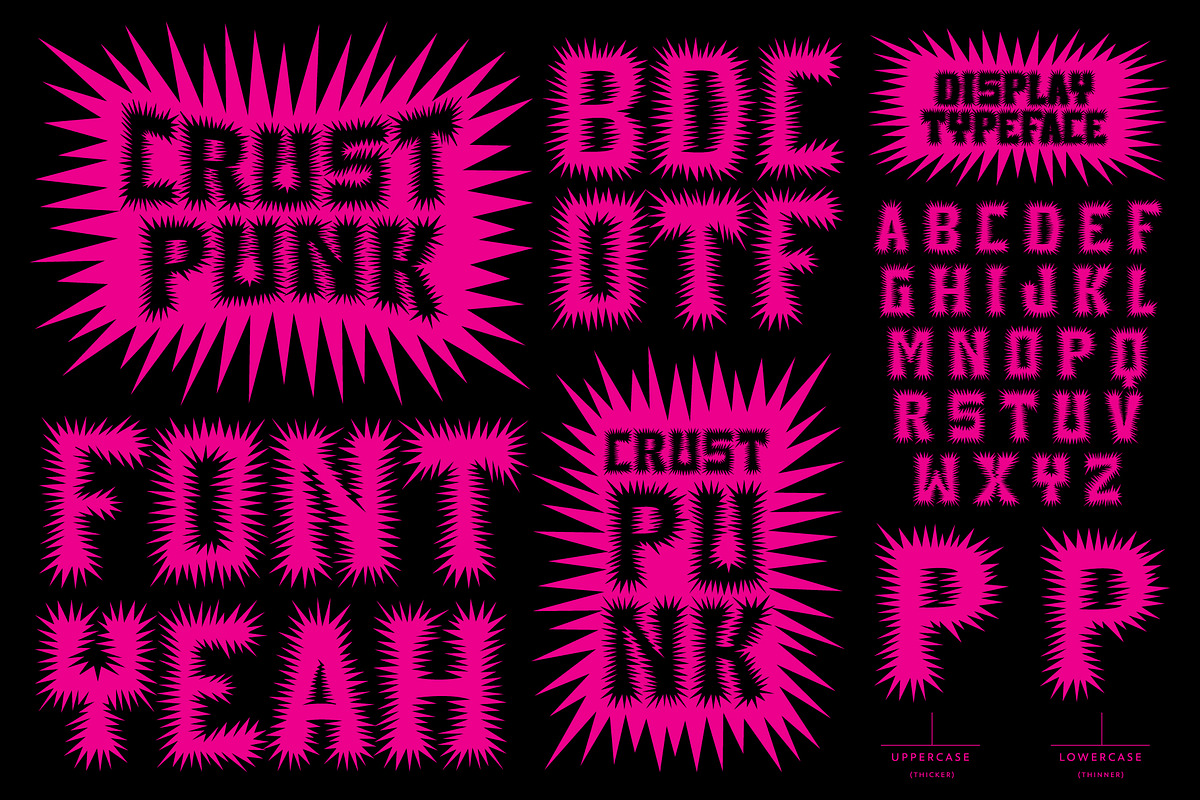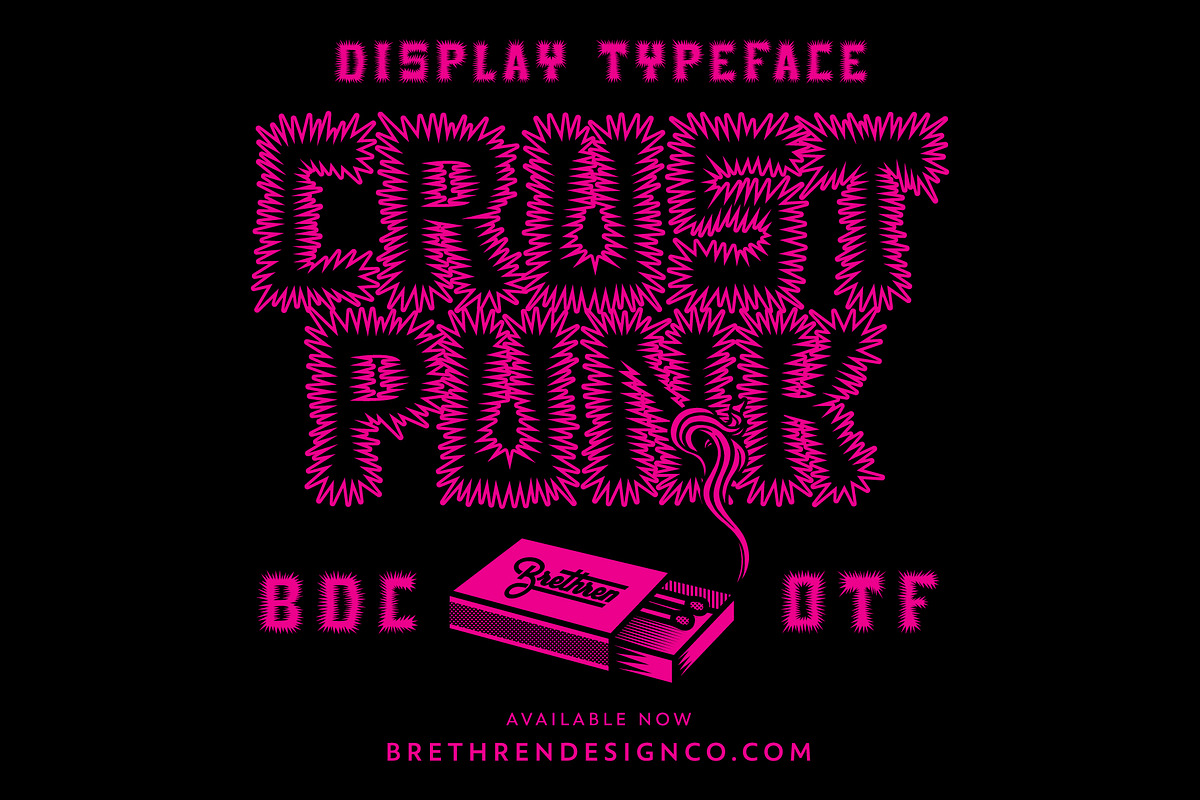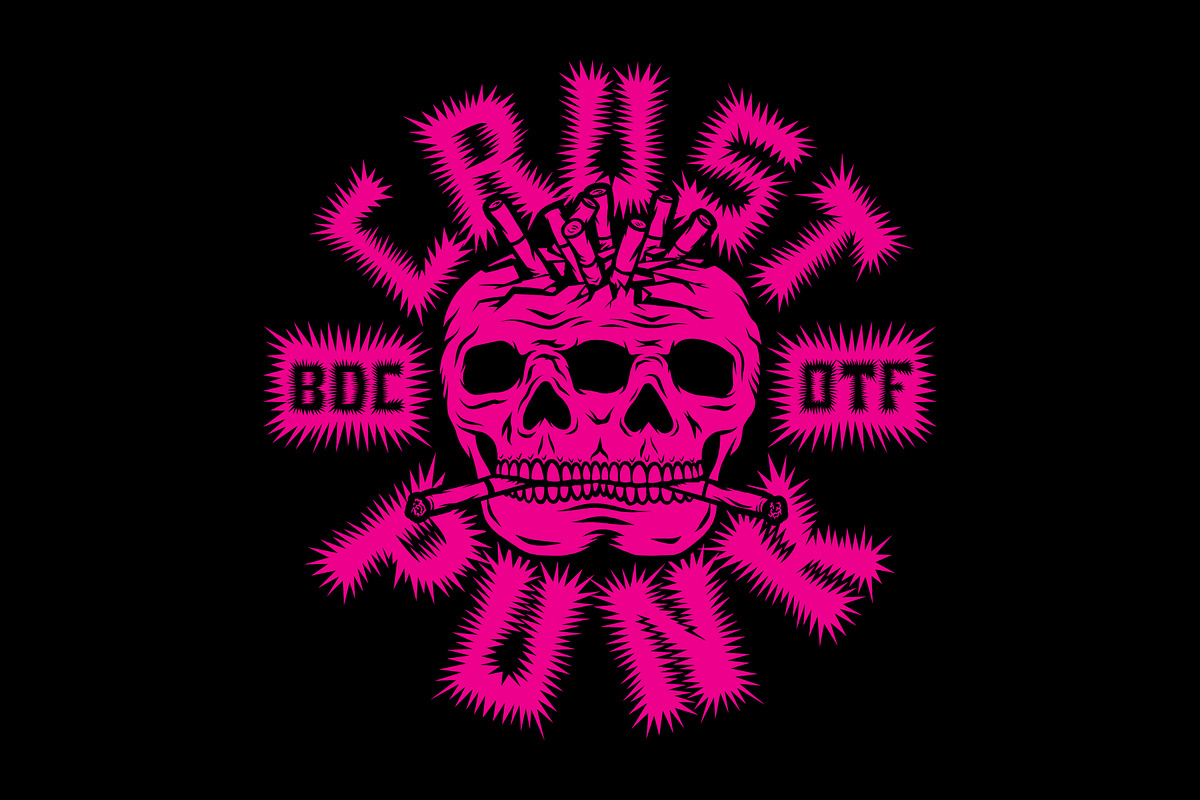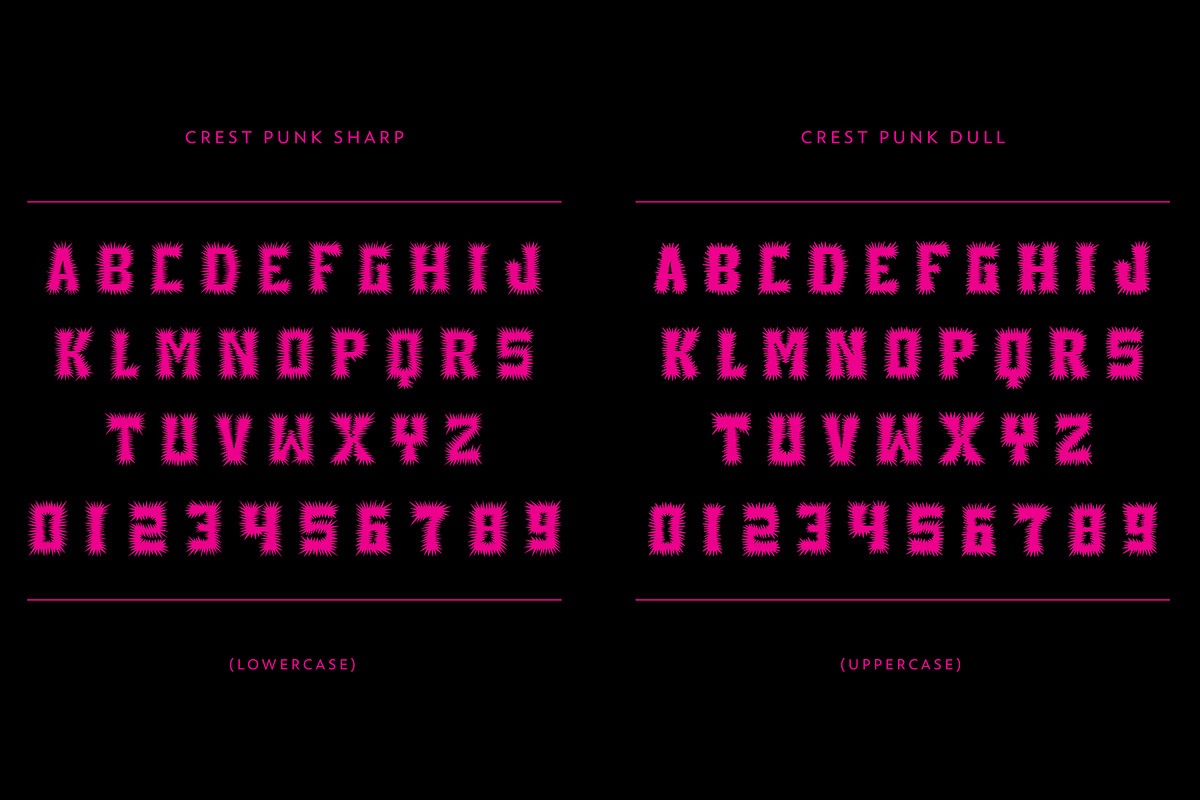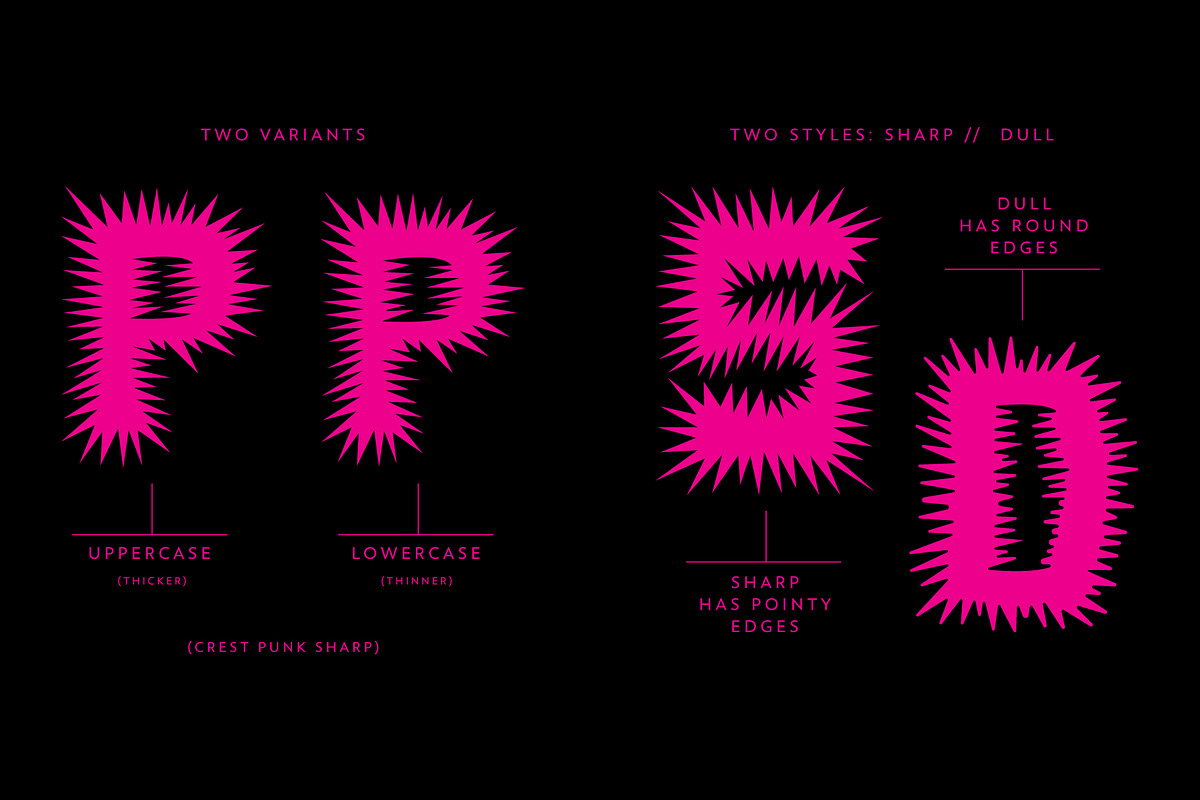
Crust Punk Display Font
New one for all you metal heads and punks out there. Crust Punk is gnarly, spiked and stitched. Comes in two styles, sharp and dull. Alternate weights by using caps and lowercase.